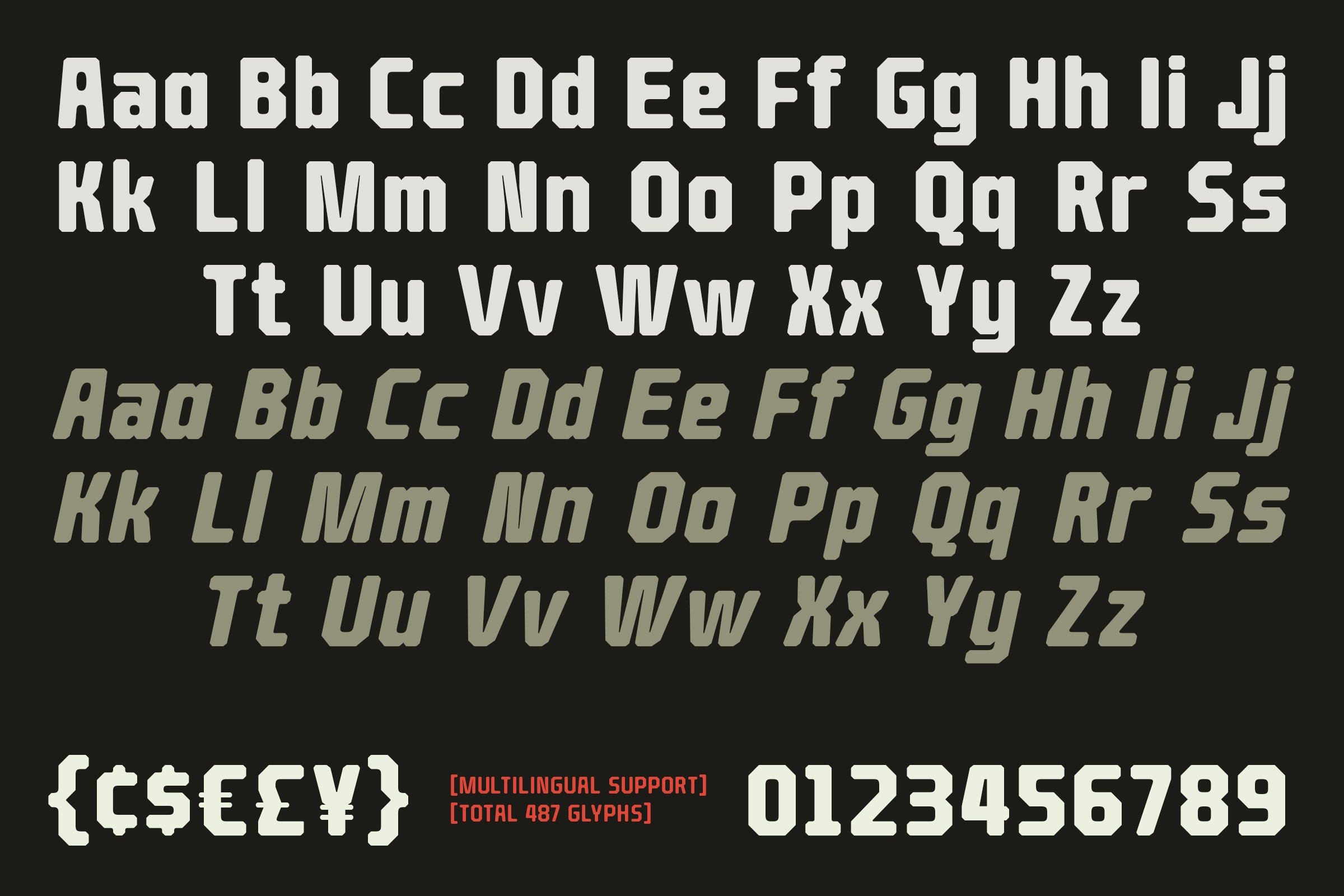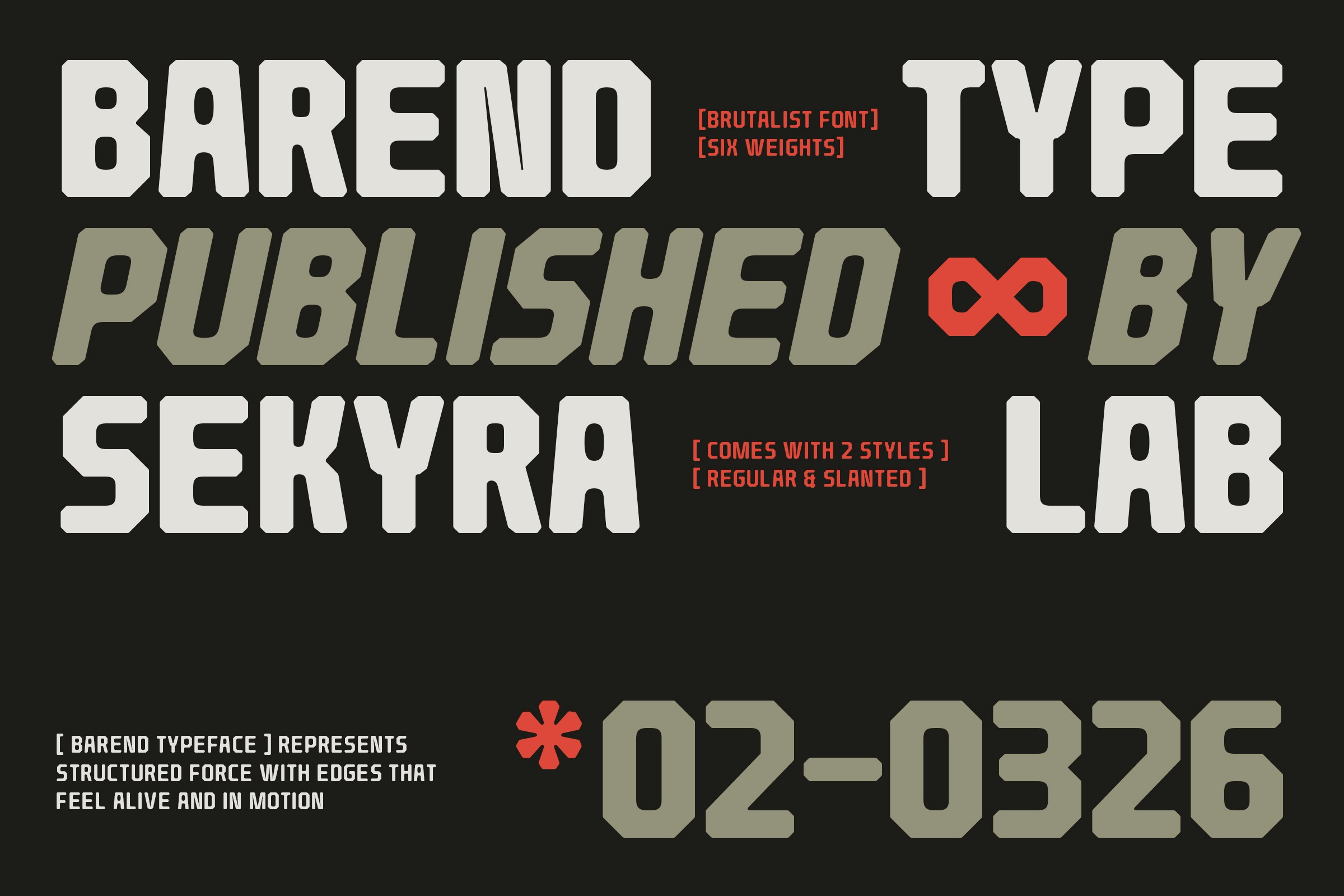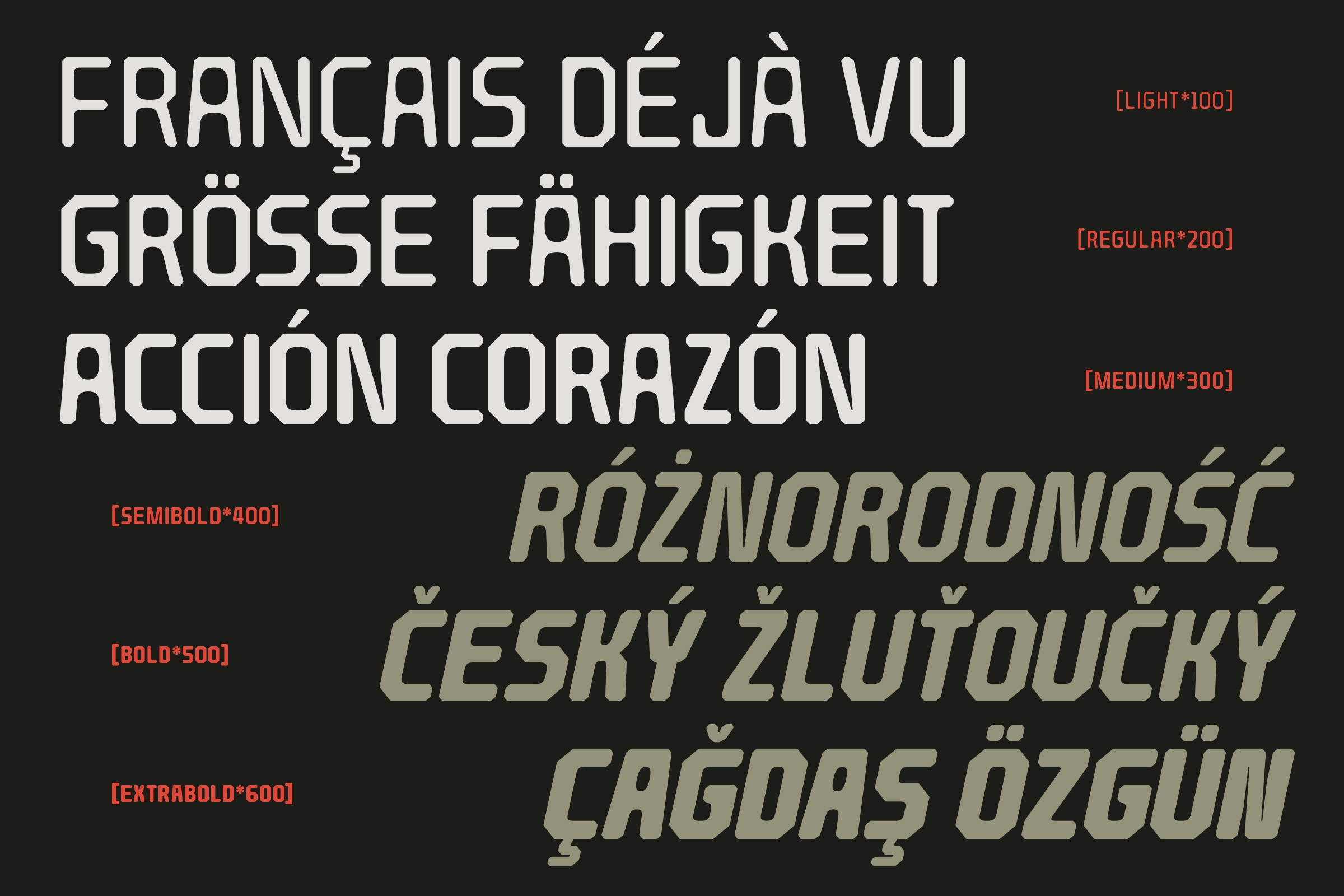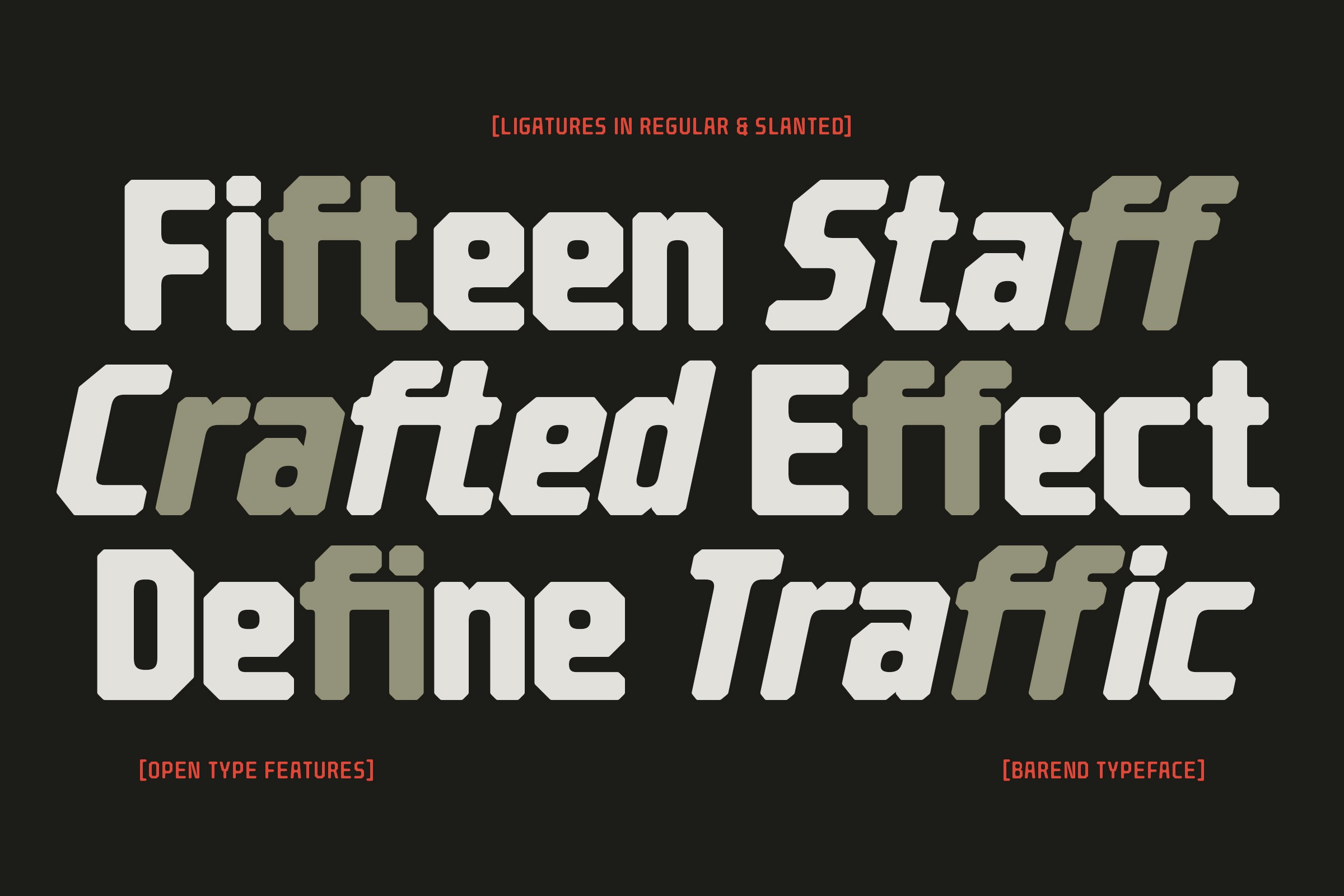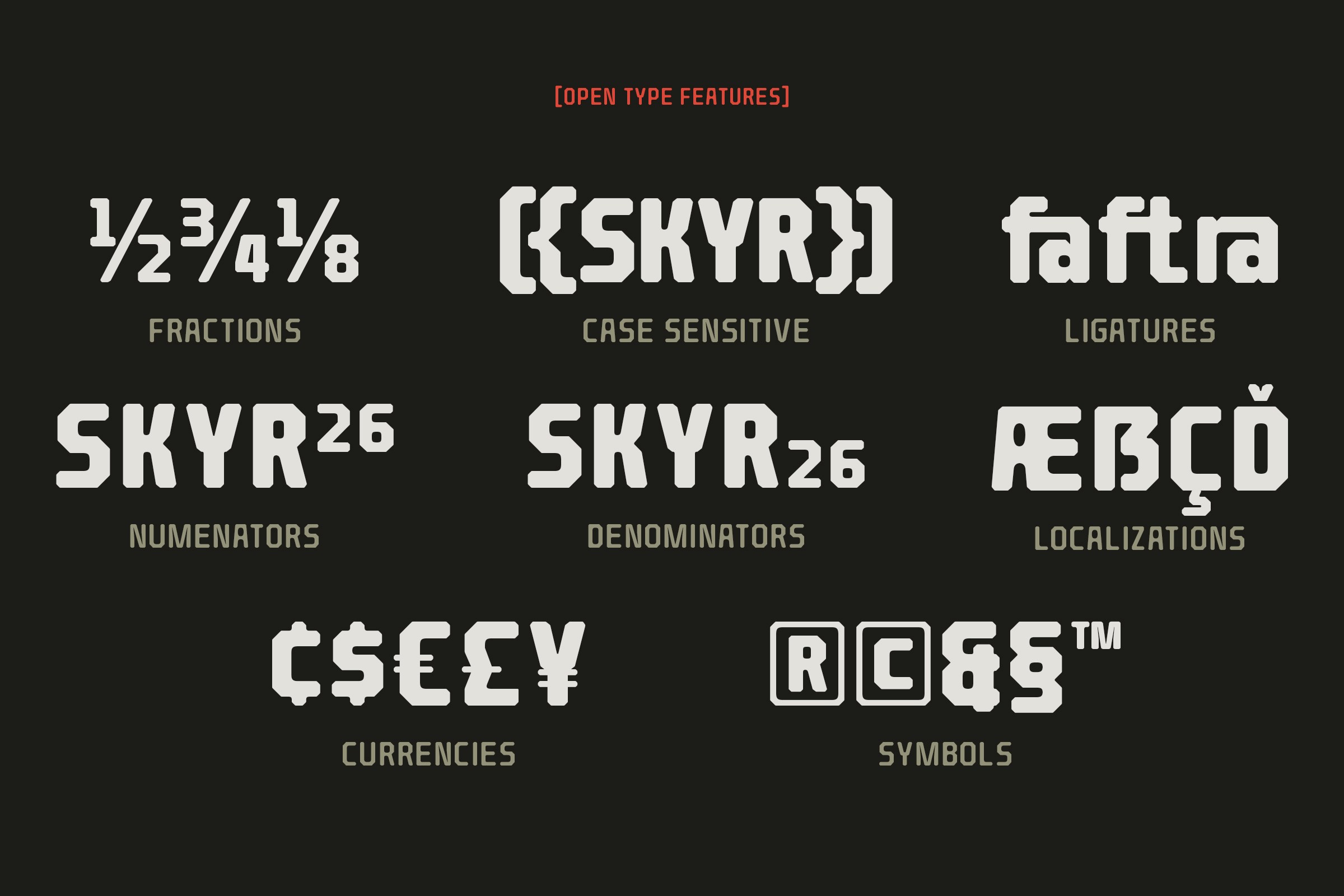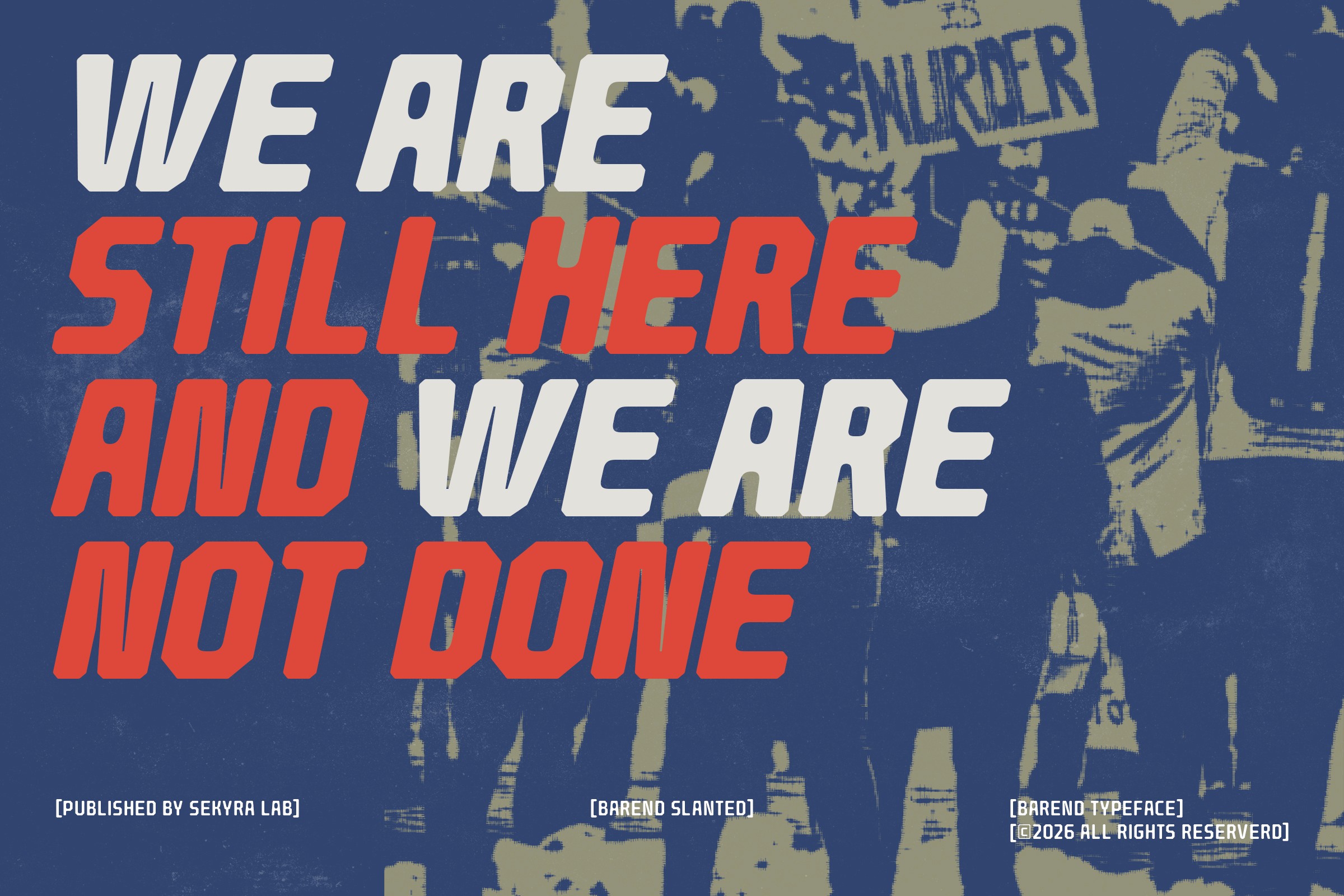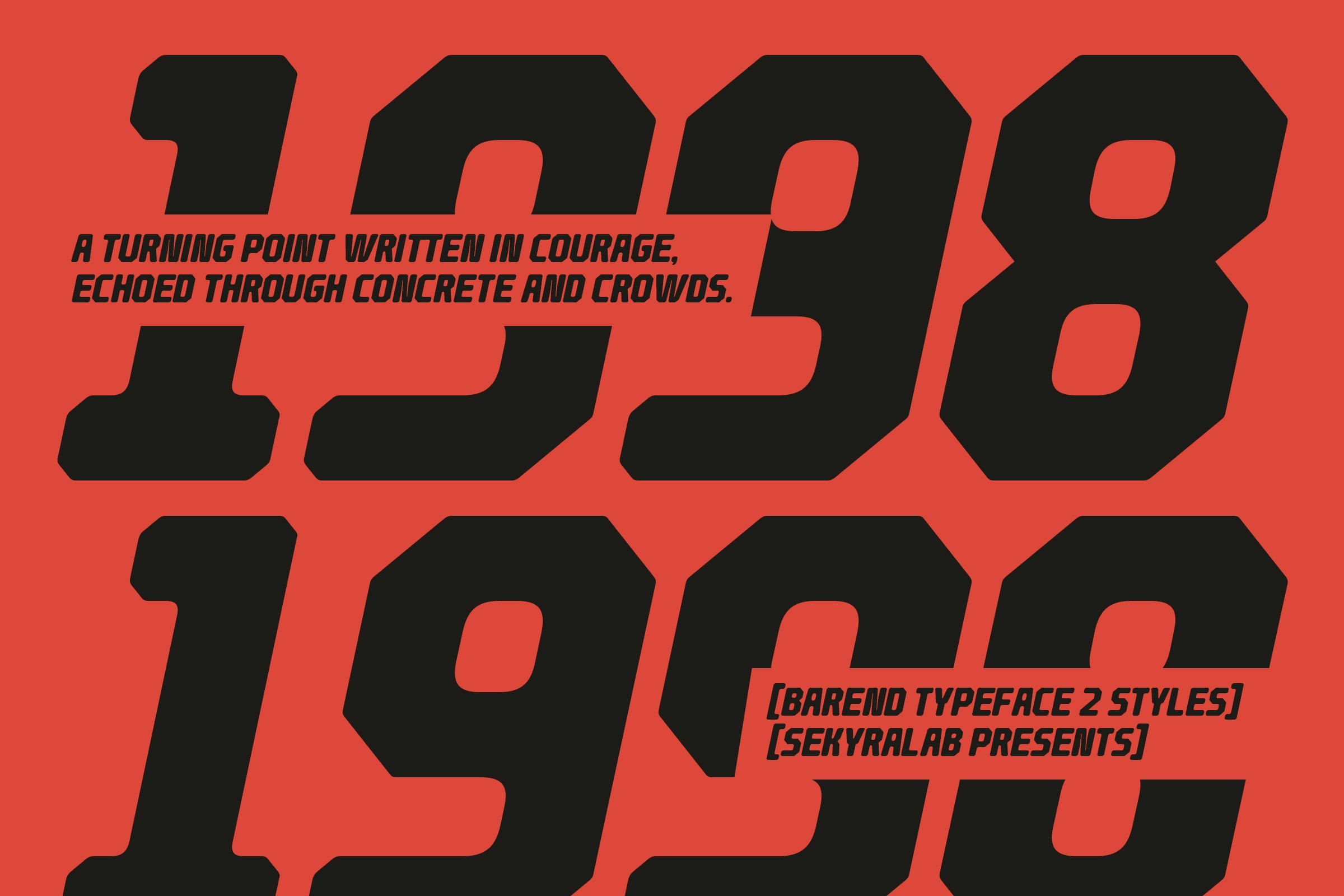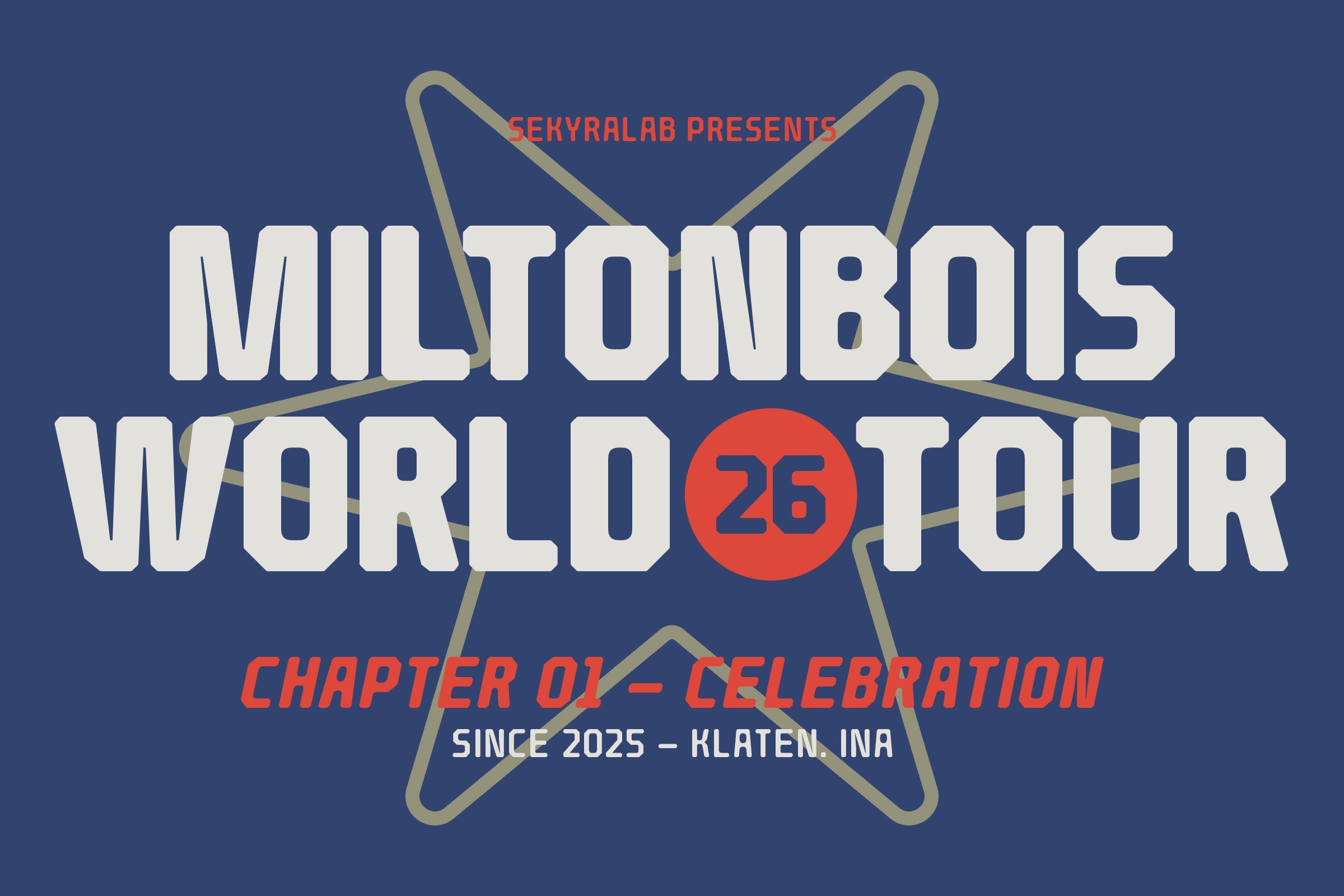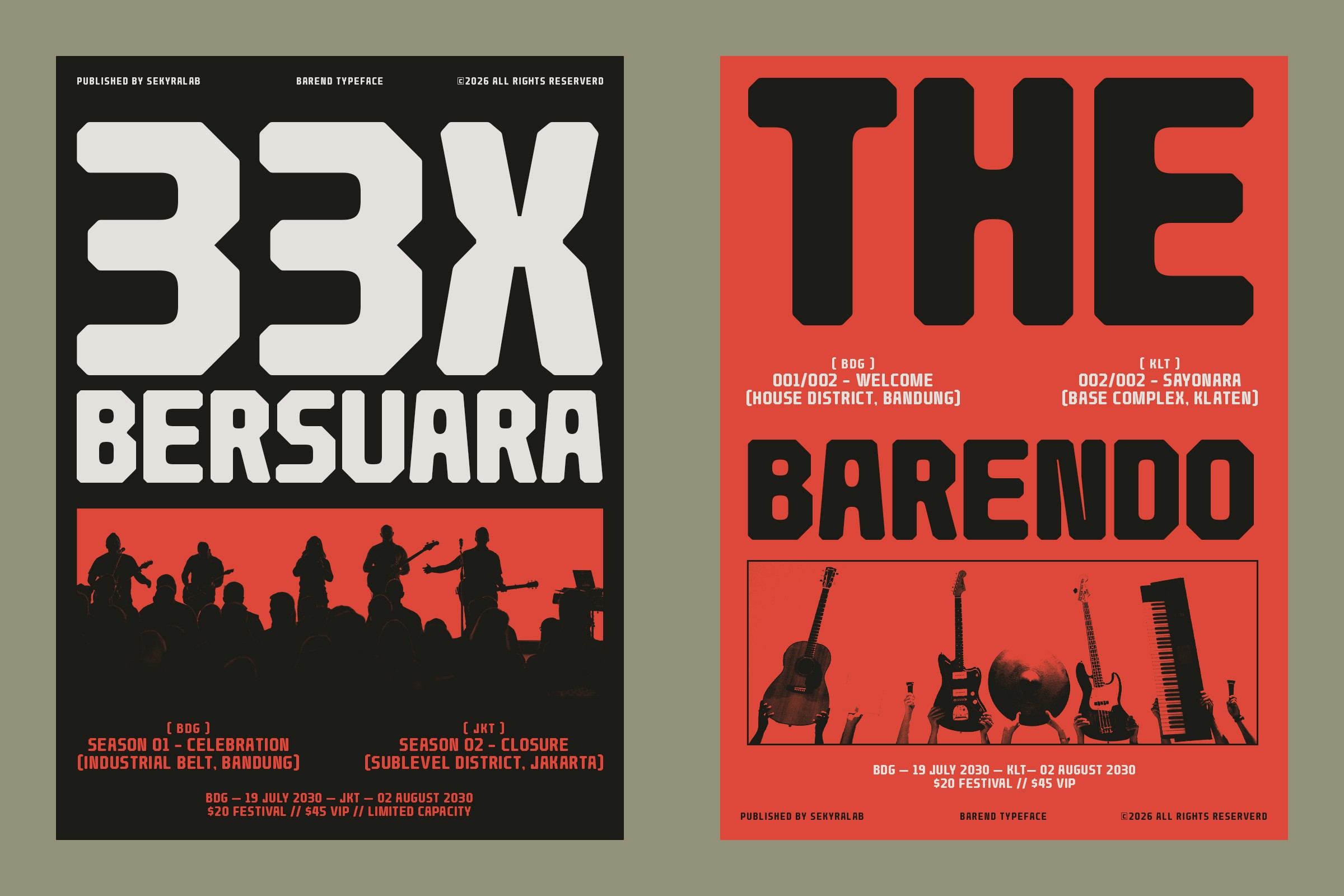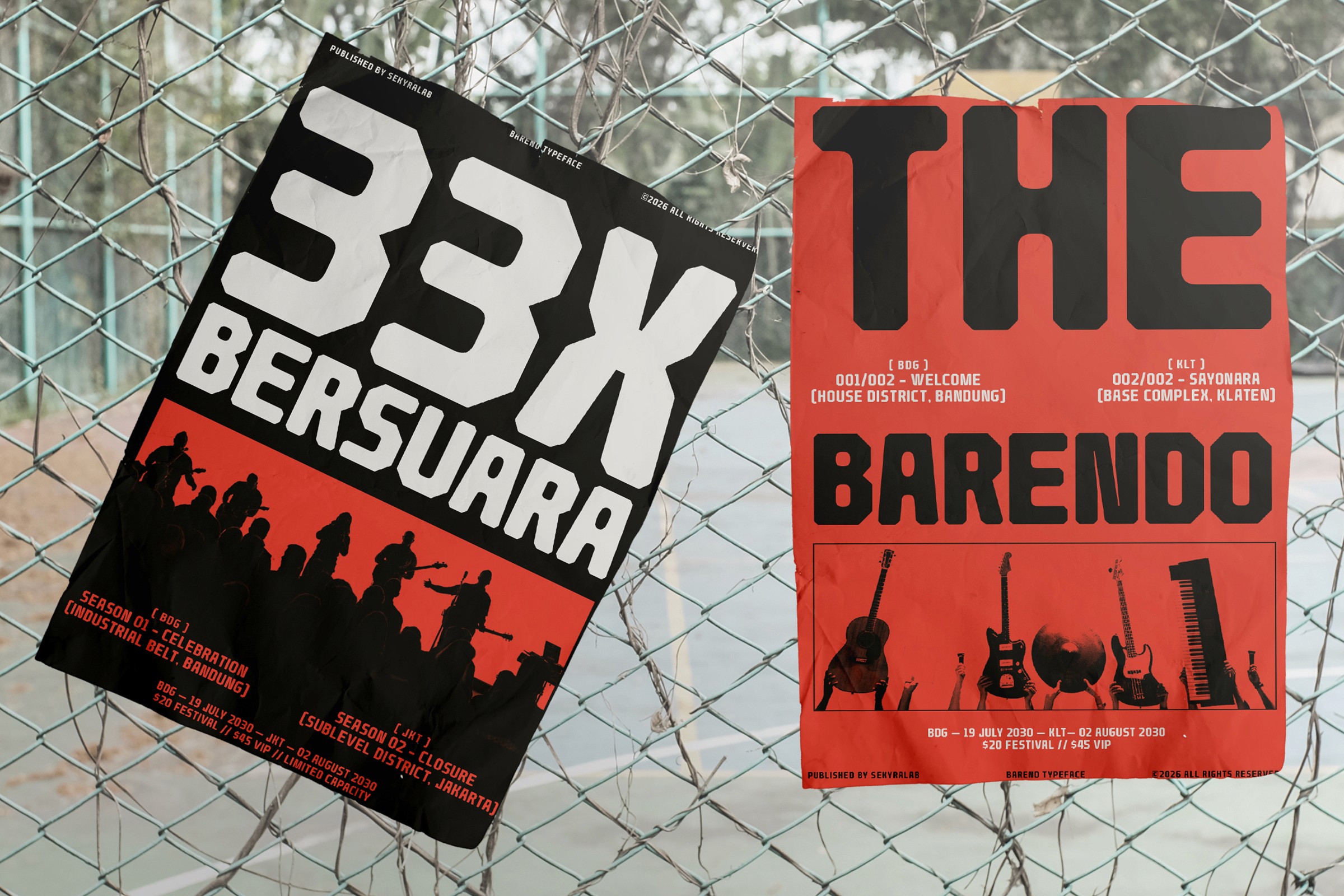
Barend Font
Type
Brutalist Display
Styles
6 Weights, 2 Styles
Barend is a brutalist display typeface defined by bold mass, sharp chamfered edges, and uncompromising geometry. Its heavy structure creates a powerful visual block that commands attention across modern layouts.
Key Features
Bold geometric construction
6 weights from Light to Black
Sharp cuts and angular terminals
Strong visual weight and presence
High-impact display character
Multilingual support
Perfect For
Posters & headlines
Editorial layouts
Experimental branding
Industrial-style visuals
Styles
6 Weights (Light → Black)
Regular
Slanted